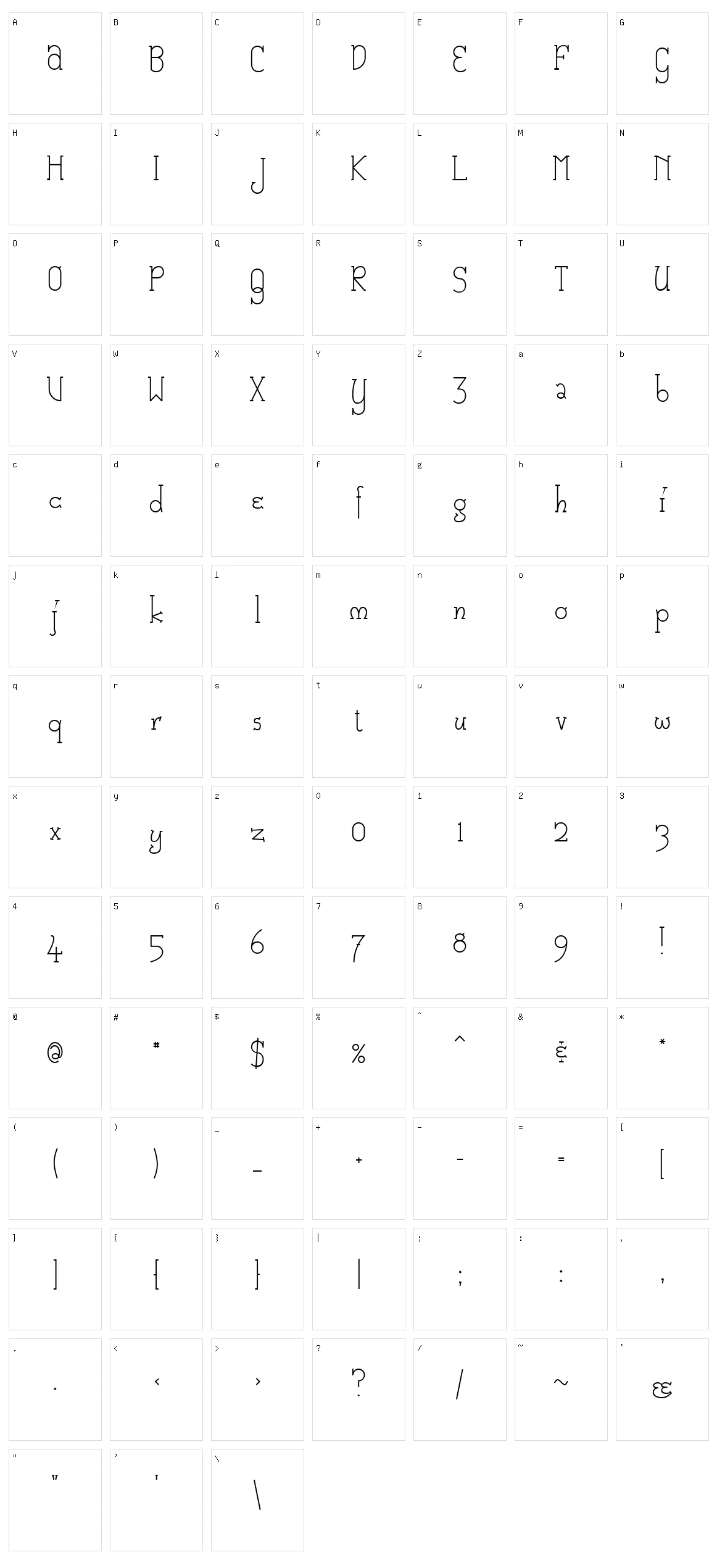
Catharsis Macchiato
Designed by: Christian Thalmann
Catharsis Macchiato
This font is aimed at coffee bars and the likes, hence the name. It
offers a range of ligatures; use a keyboard tool to find them all.
-- Christian Thalmann